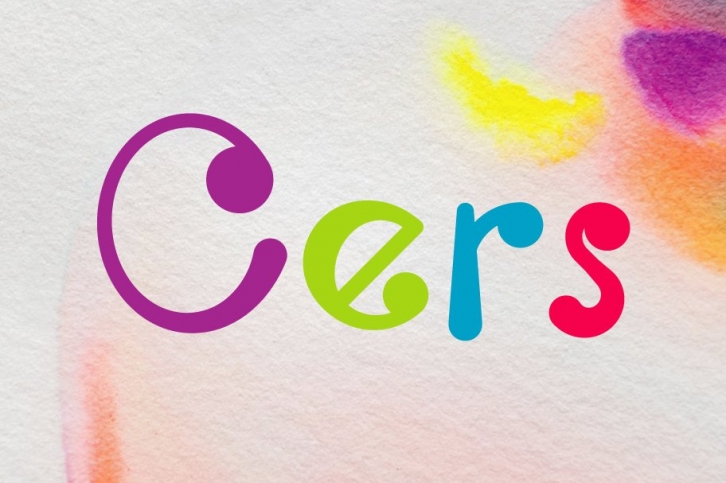
Cers is playful font which puts a smile on your projects and will inspire you to create something fun and memorable. It is perfect for headings, flyer, greeting cards, product packaging, book cover, printed quotes, logotype, apparel design, album covers, etc.
Cers will help you to create special and touching typographical design for scandinavian or childish projects, for every day or the happiest day in life, summer vacations, baby shower, happy birthday cards. It is really universal and modern font. The owner of endless possibilities!
Just create the best design and make your projects cosy, funny, truly hand-painted realistic and natural.